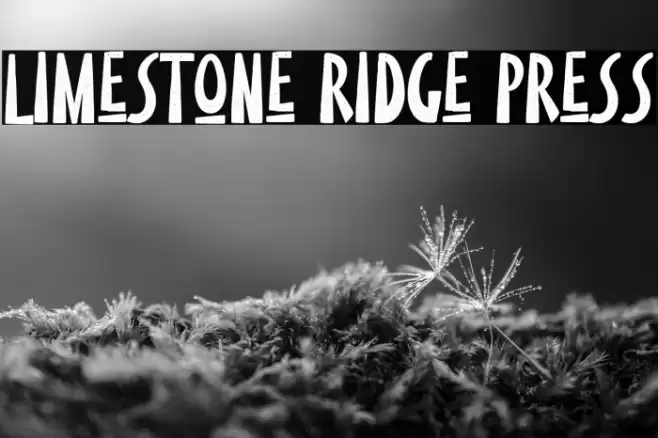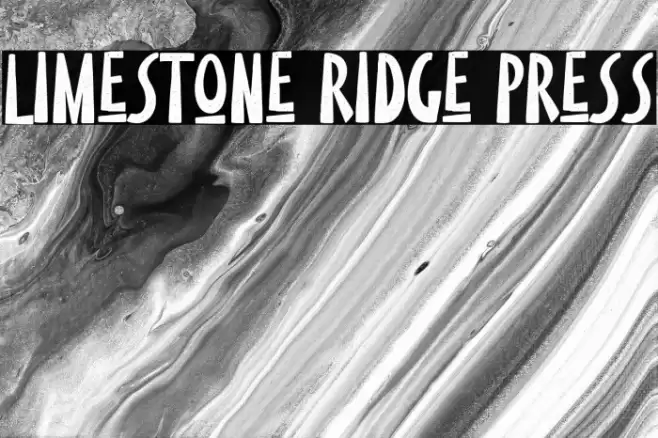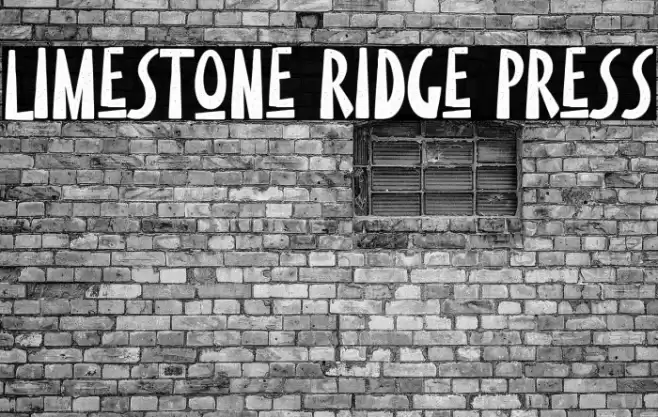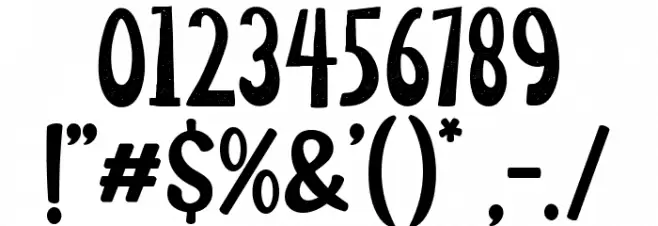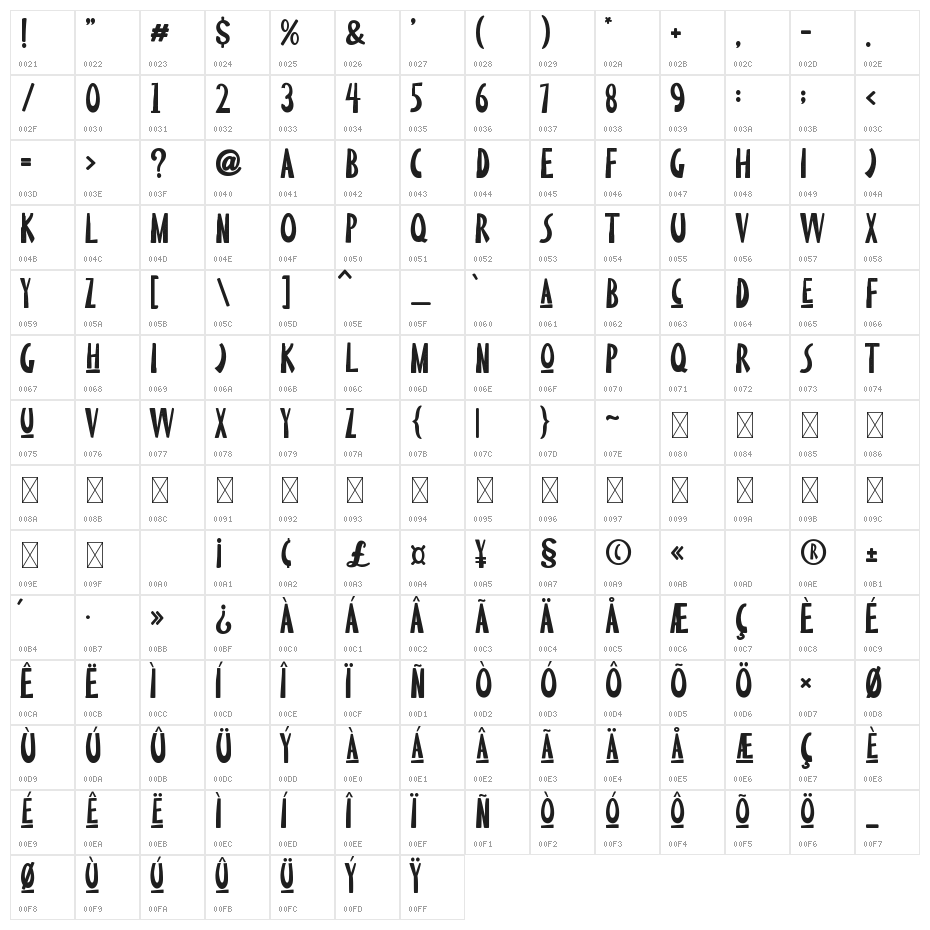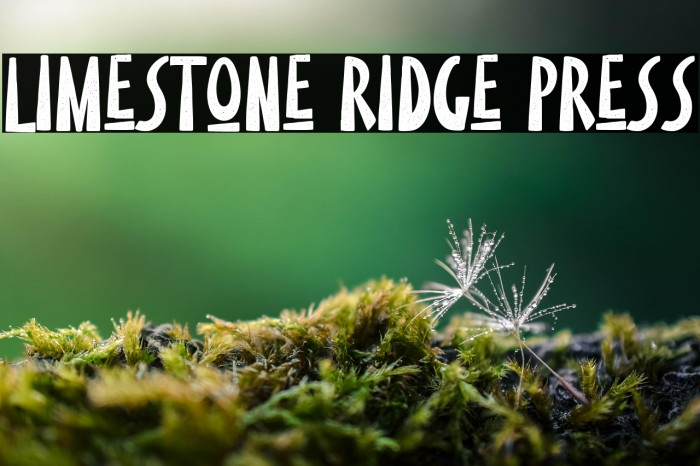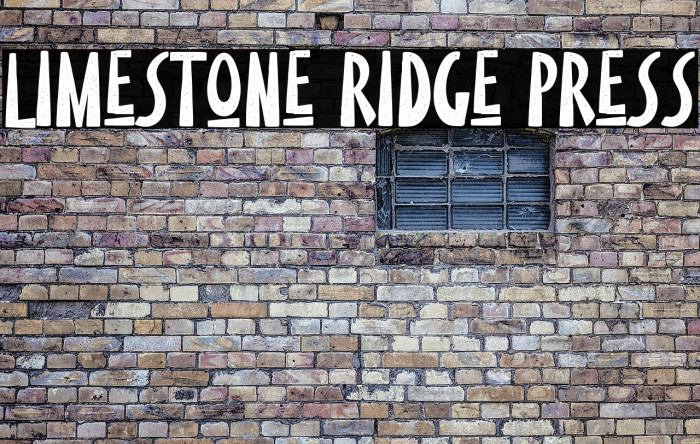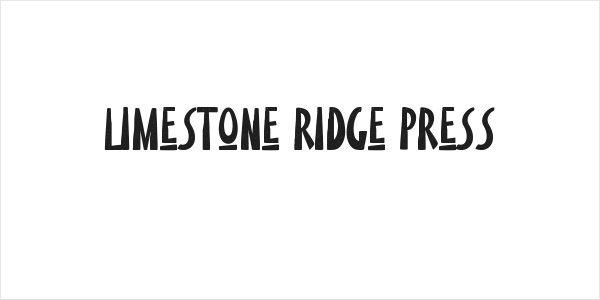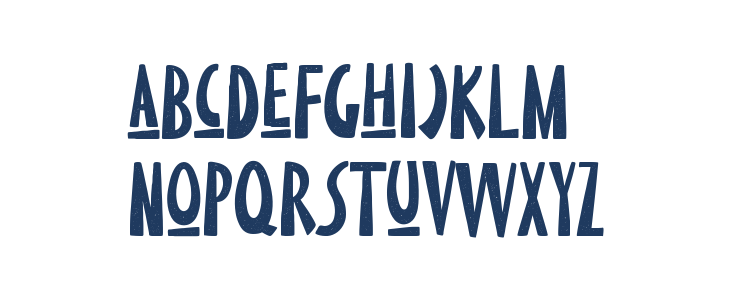
Limestone Ridge Press Font
Limestone Ridge Press Description
This font features a bold and playful design with a hand-drawn appearance. The letters are slightly irregular, adding a whimsical and artistic touch. The texture includes a speckled pattern, giving it a vintage, worn-out feel. The uppercase and lowercase letters maintain a consistent style, with rounded edges and a slightly condensed form. Numbers and special characters are designed to match the playful and textured aesthetic, making it suitable for creative and informal projects.
A bold, hand-drawn font with a playful, textured design from Regular fonts.
- Proposed Projects: Ideal for posters, children's books, greeting cards, and creative branding projects.
- Overall Style: Vintage, Playful